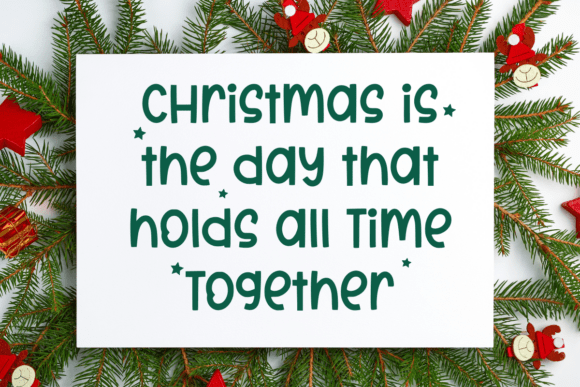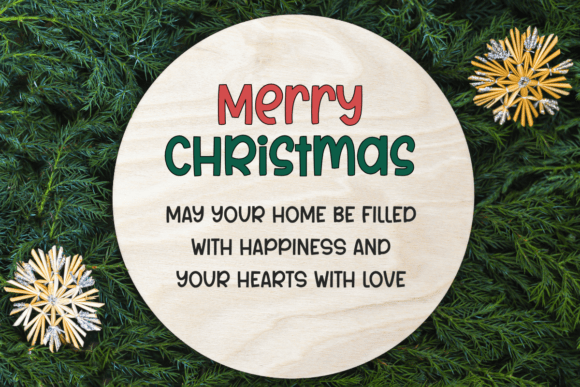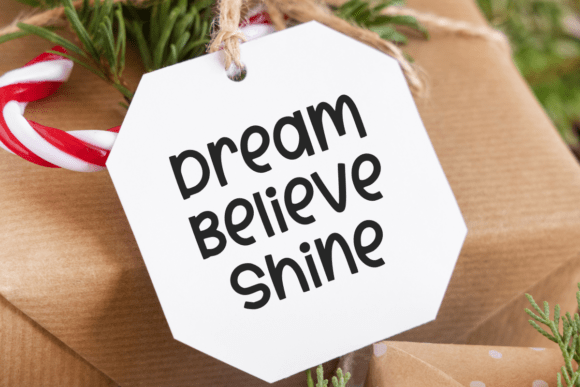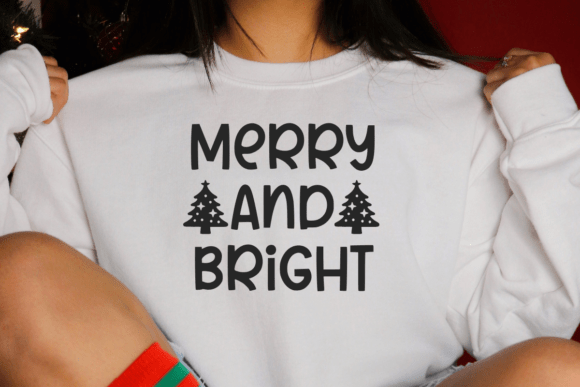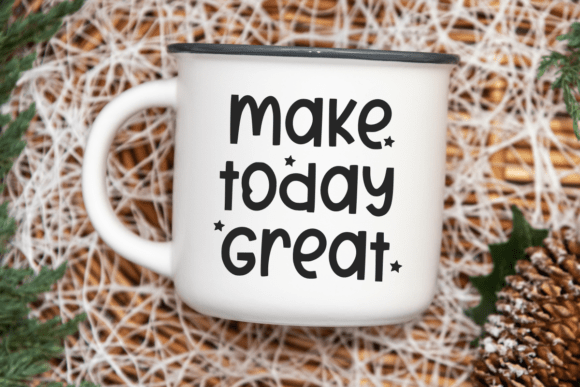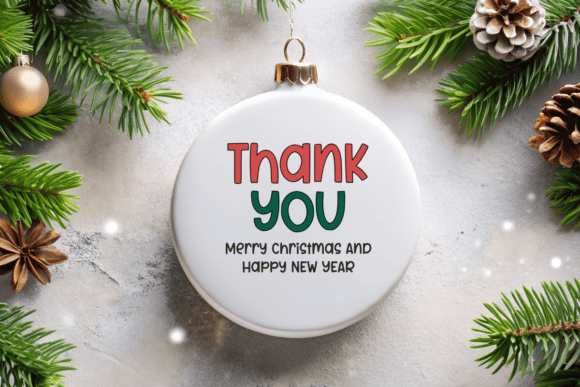
Deck the Halls with Joy: Introducing the Holiday Christmas Font
As a designer, there’s no feeling quite like the rush of creativity that comes with the holiday season. You’re sipping hot cocoa, surrounded by twinkling lights, and the pressure is on to create the perfect festive design. That’s where the Holiday Christmas Font comes in – a whimsical and playful display font that captures the lighthearted magic of Christmas with a modern twist.
With its quirky, rounded letterforms and charming star accents, this font is perfect for festive designs, holiday cards, kids’ crafts, and cheerful branding. Whether you’re a seasoned pro or a design newbie, the Holiday Christmas Font is a valuable addition to any creative arsenal, offering a unique way to add a dose of fun and warmth to your projects.
- Unique Characteristics: The font features intricate, hand-drawn illustrations and ornaments, adding a touch of whimsy and festivity to designs.
Holiday Christmas Font Review
I recently had the chance to work with the “Holiday Christmas Font” and I must say, it’s a mixed bag. Here are my honest thoughts.
- The font is perfect for festive designs, especially for Christmas and winter-themed projects.
- The bold and playful style of the font makes it easy to grab the viewer’s attention.
- The font comes in a variety of weights and styles, making it versatile for different design applications.
- The font can feel a bit overused, especially in commercial designs. It’s not uncommon to see it used in every holiday-themed design.
- The font’s bold style can make it difficult to read in smaller sizes or in crowded layouts.
- The font is not suitable for serious or formal designs, as it can come across as too playful or childish.
The “Holiday Christmas Font” is a fun and playful font that’s perfect for festive designs. While it has some limitations, it’s a great choice for holiday-themed projects where you want to add a touch of whimsy and fun. Just be sure to use it in moderation and pair it with other fonts to avoid overusing it.
For the best results, use the Holiday Christmas Font in combination with festive graphics and colors.
The Holiday Christmas Font is ideal for:
Creating festive holiday cards and invitations.
Designing holiday-themed social media graphics.
Adding a touch of holiday cheer to your website or blog.
Alternatives to Holiday Christmas Font
Great Vibes is a beautiful, handwritten font perfect for creating a festive and whimsical atmosphere. It features elegant, flowing lines and a touch of sophistication. Use it for invitations, greeting cards, or any design where you want to convey a sense of joy and celebration.
Compared to Holiday Christmas Font, Great Vibes has a more refined and elegant feel. While Holiday Christmas Font is more playful and bold, Great Vibes is ideal for designs that require a touch of sophistication and elegance.
Carolyna Pro is a modern, elegant font that exudes sophistication and refinement. It features clean lines, elegant curves, and a touch of luxury. Use it for high-end designs, such as luxury branding, packaging, or invitations.
Compared to Holiday Christmas Font, Carolyna Pro has a more refined and sophisticated feel. While Holiday Christmas Font is more playful and festive, Carolyna Pro is ideal for designs that require a touch of luxury and elegance.
Rock Salt is a modern, bold font that features a distressed, vintage look. It’s perfect for creating a rugged, outdoorsy feel. Use it for designs that require a touch of ruggedness and adventure.